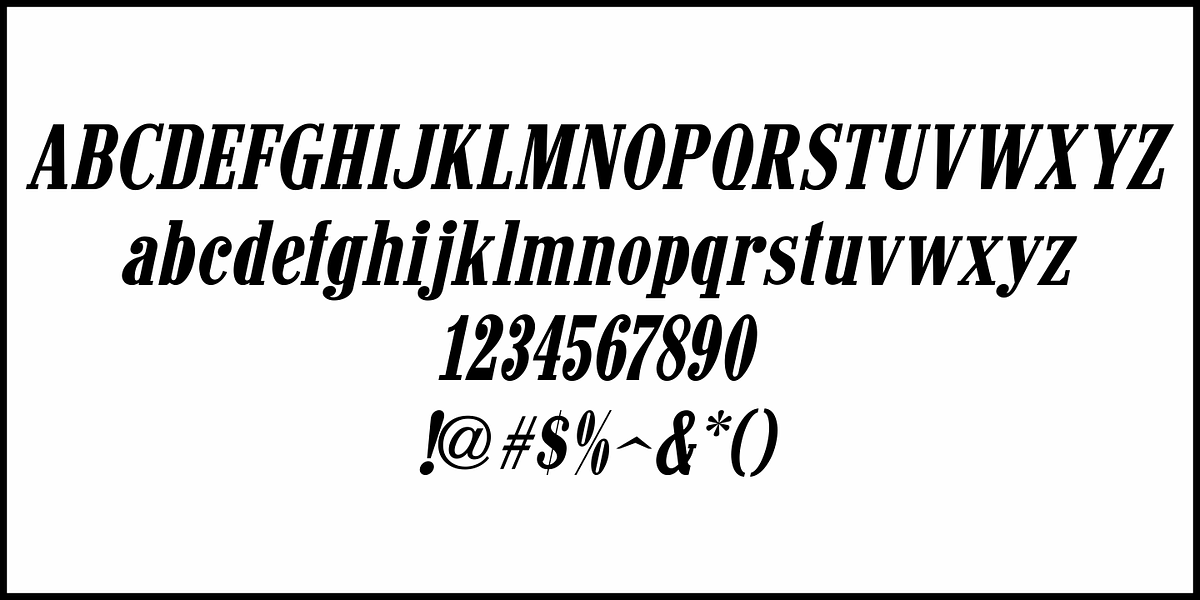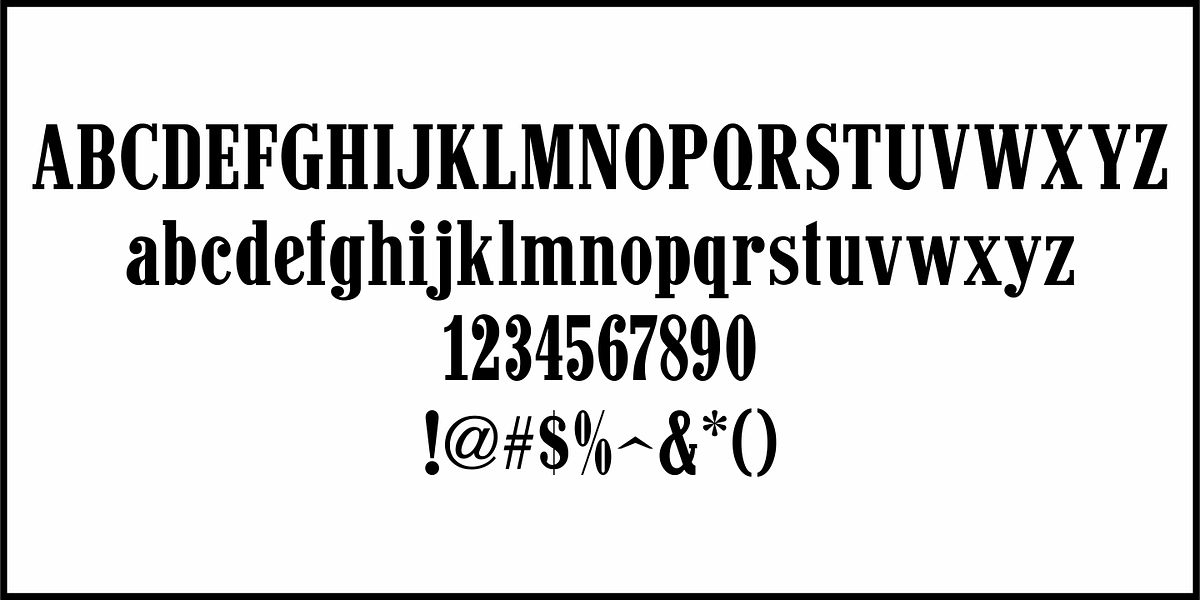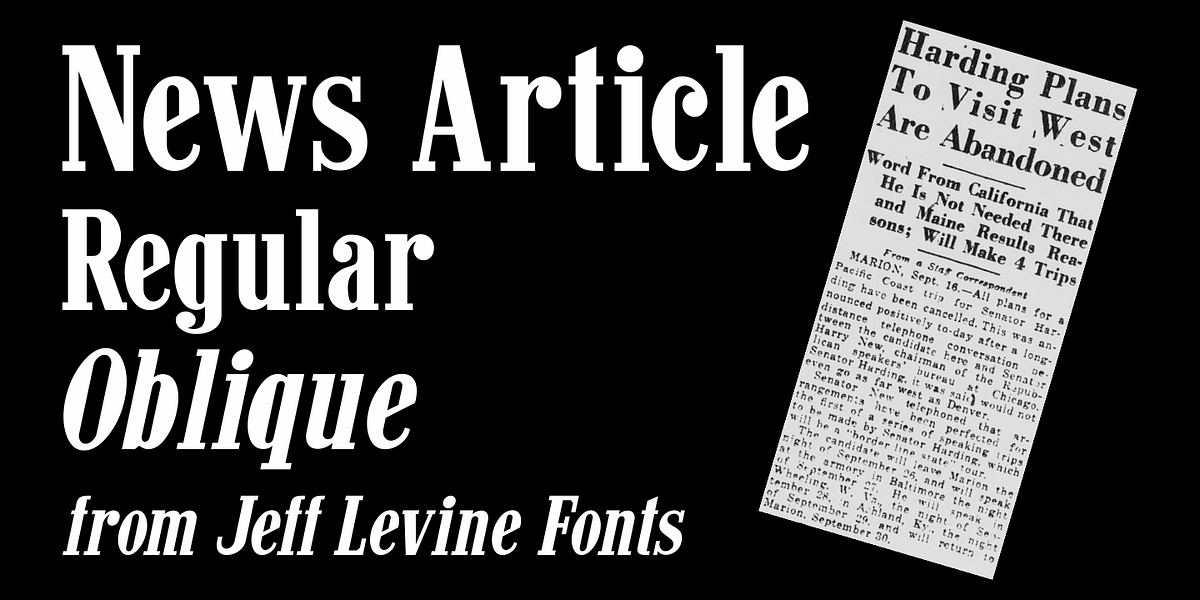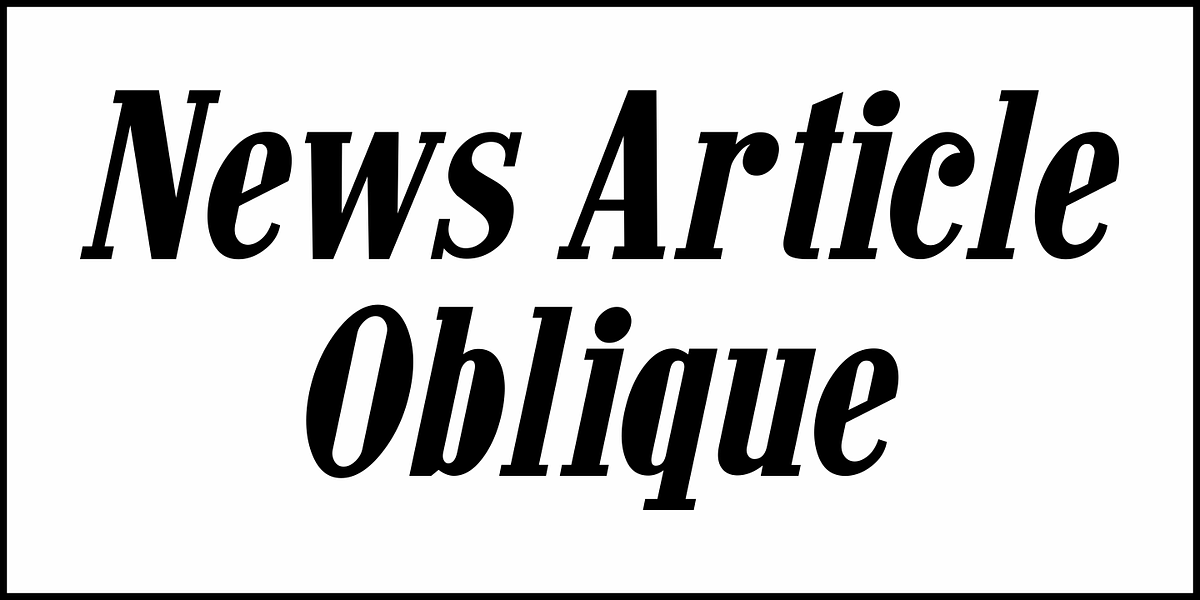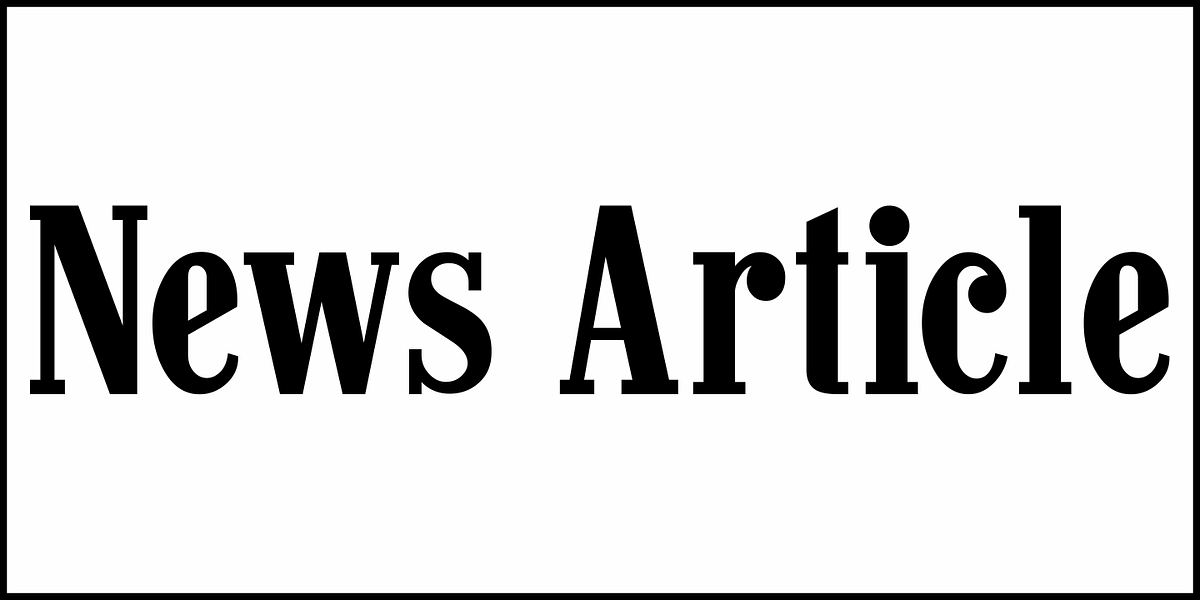
News Article JNL
A bold, condensed slab serif type design, News Article JNL was modeled after headlines seen in a 1943 issue of Billboard Magazine, and is available in both regular and oblique versions.